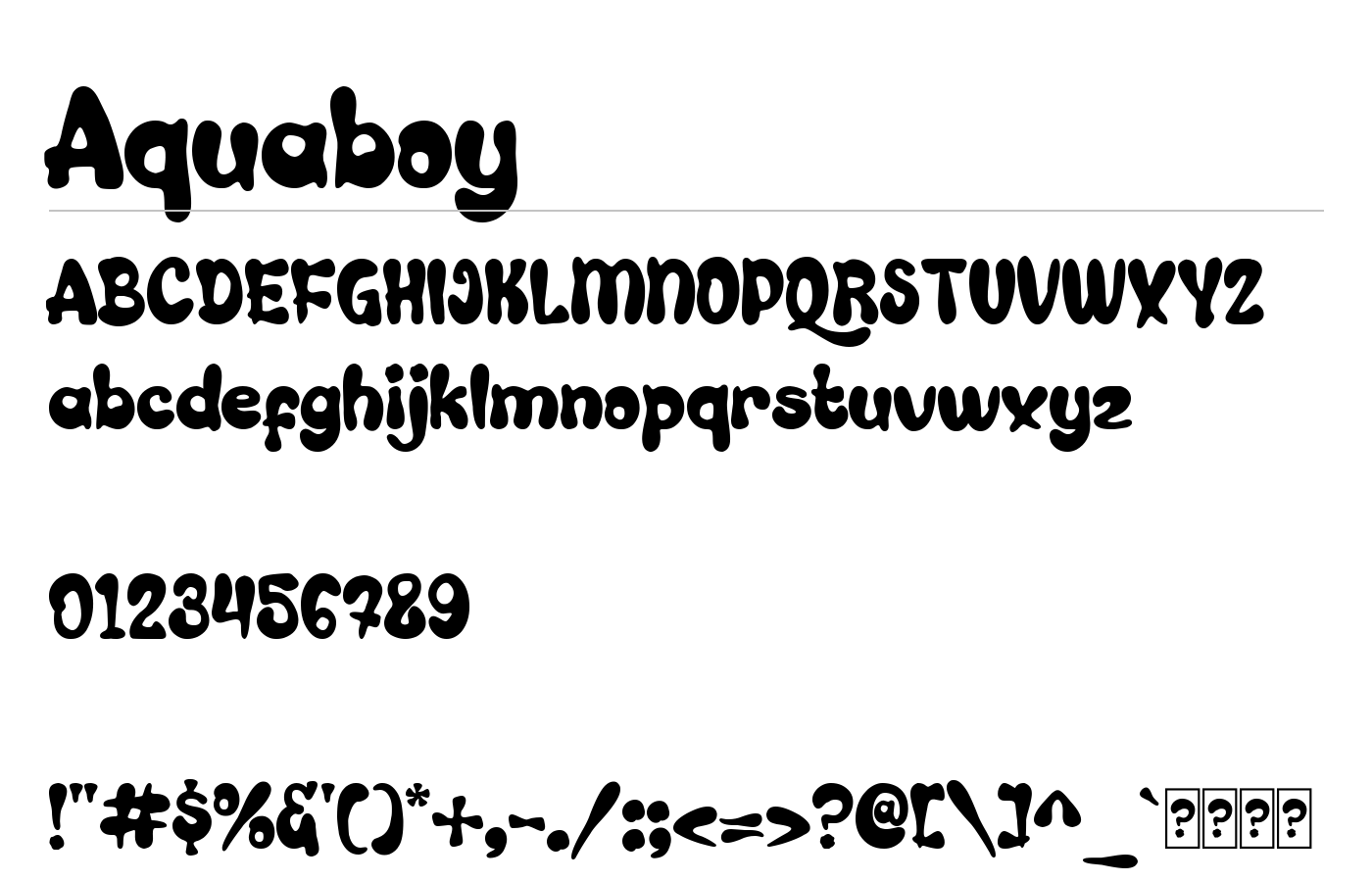
Aquaboy is a playful and bold sans serif font with rounded, bubbly letterforms that give it a fun and approachable personality. Its thick weight and whimsical curves make it perfect for playful branding, children’s products, and casual designs where a relaxed, friendly vibe is desired. This font works best in headlines and logos, bringing a lively and informal touch to any creative project.
Aquaboy Font
About Aquaboy Font
| Font family | Aquaboy Font |
| Designer | ZetDesign (Ahmad Zulfikar Ali) |